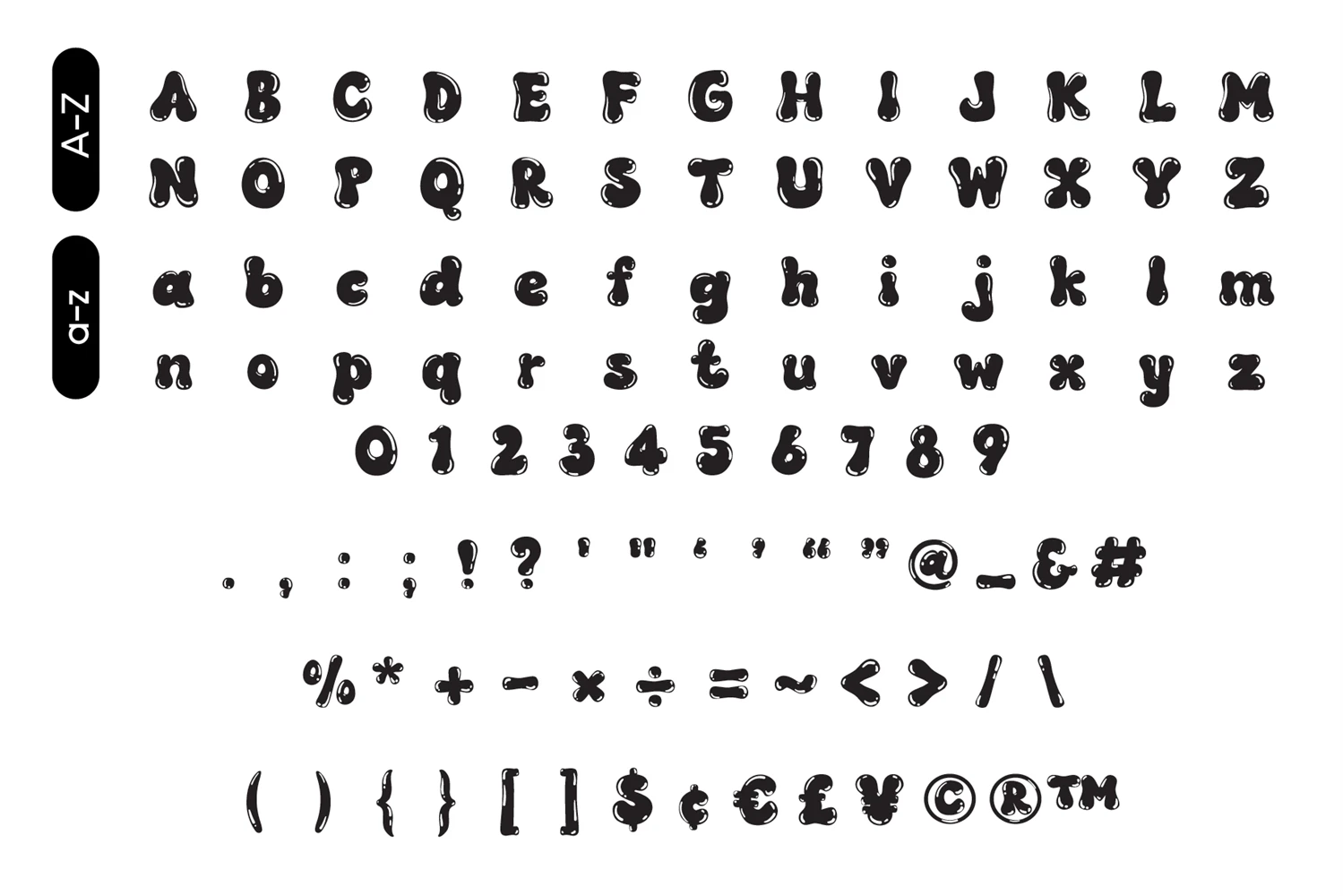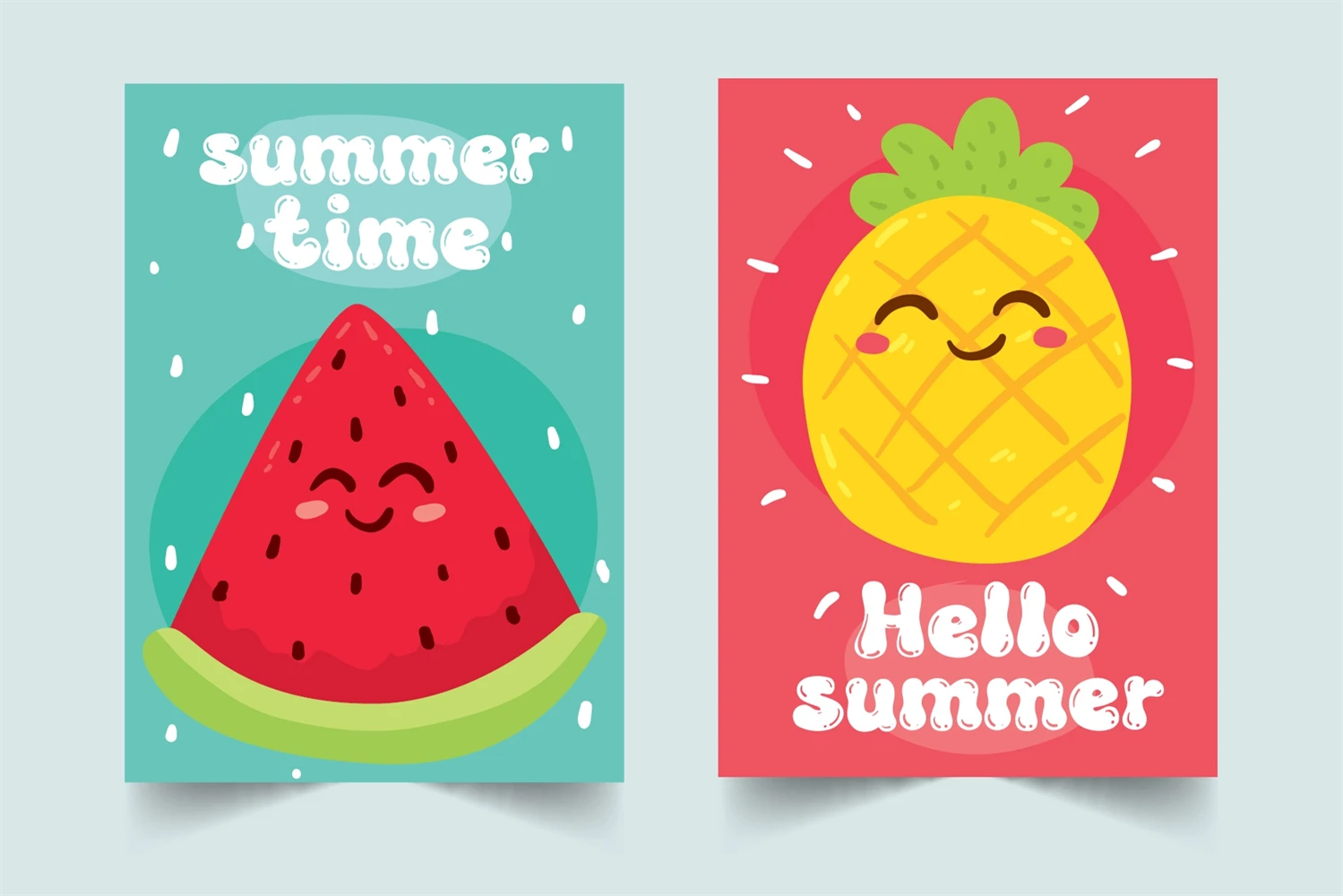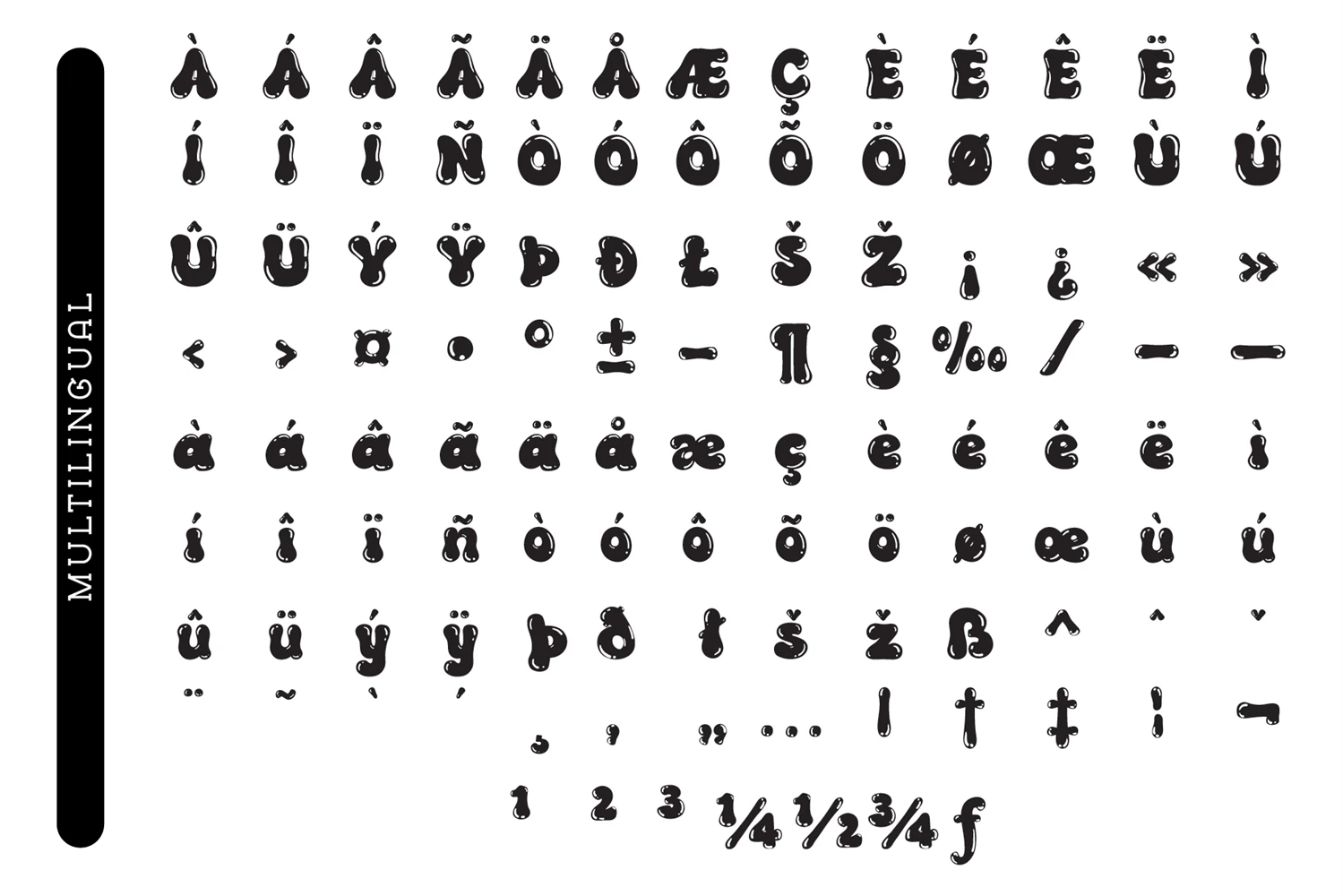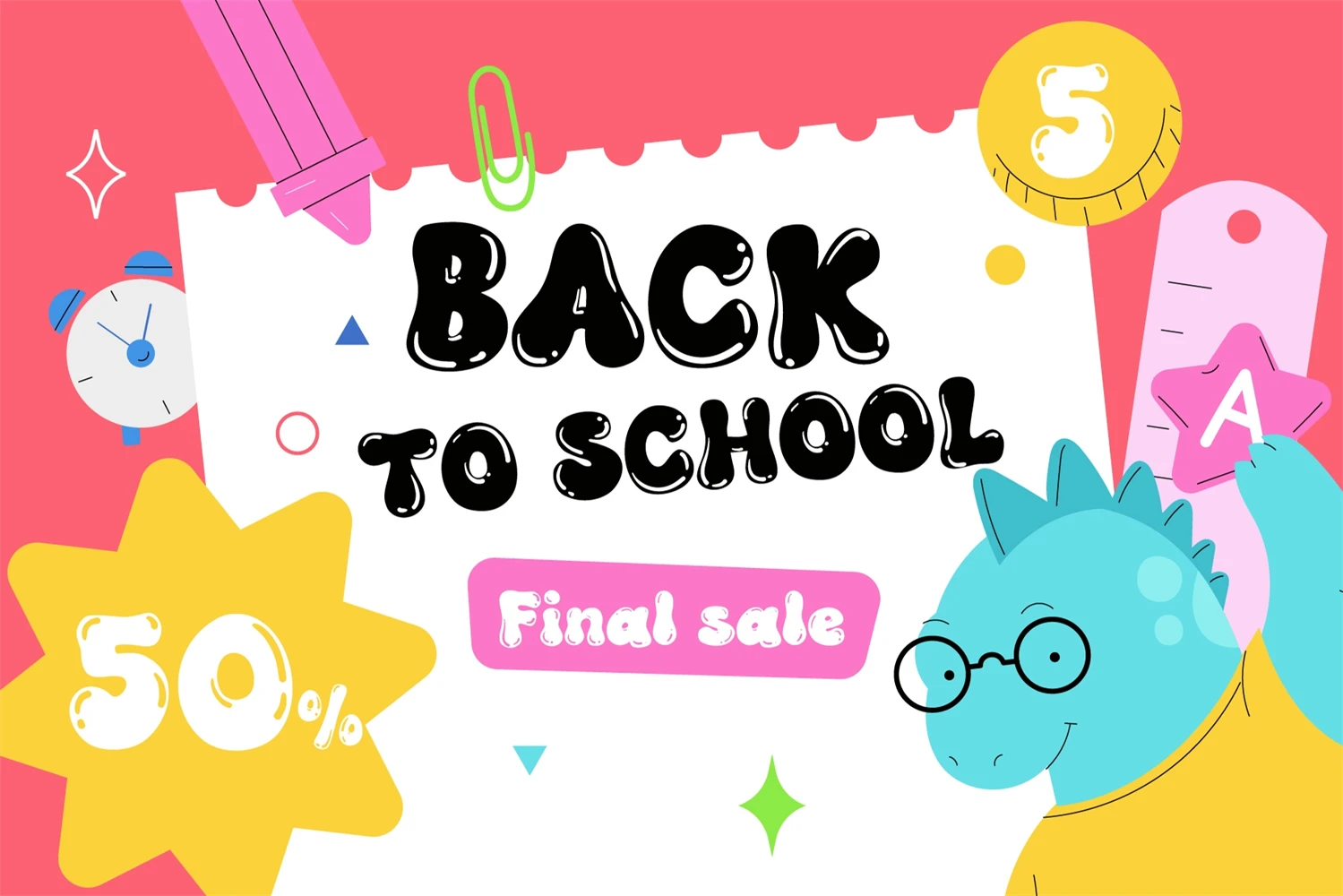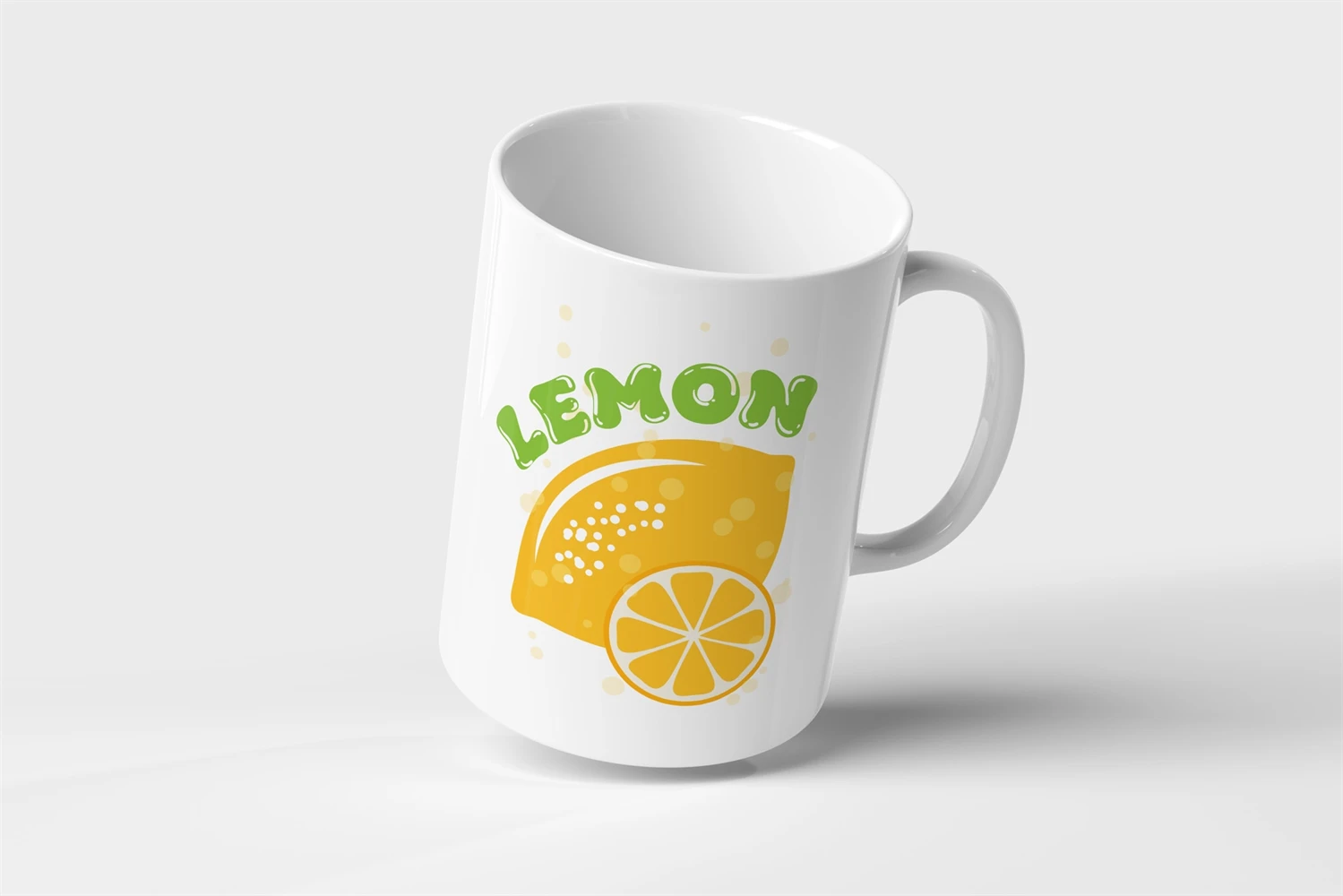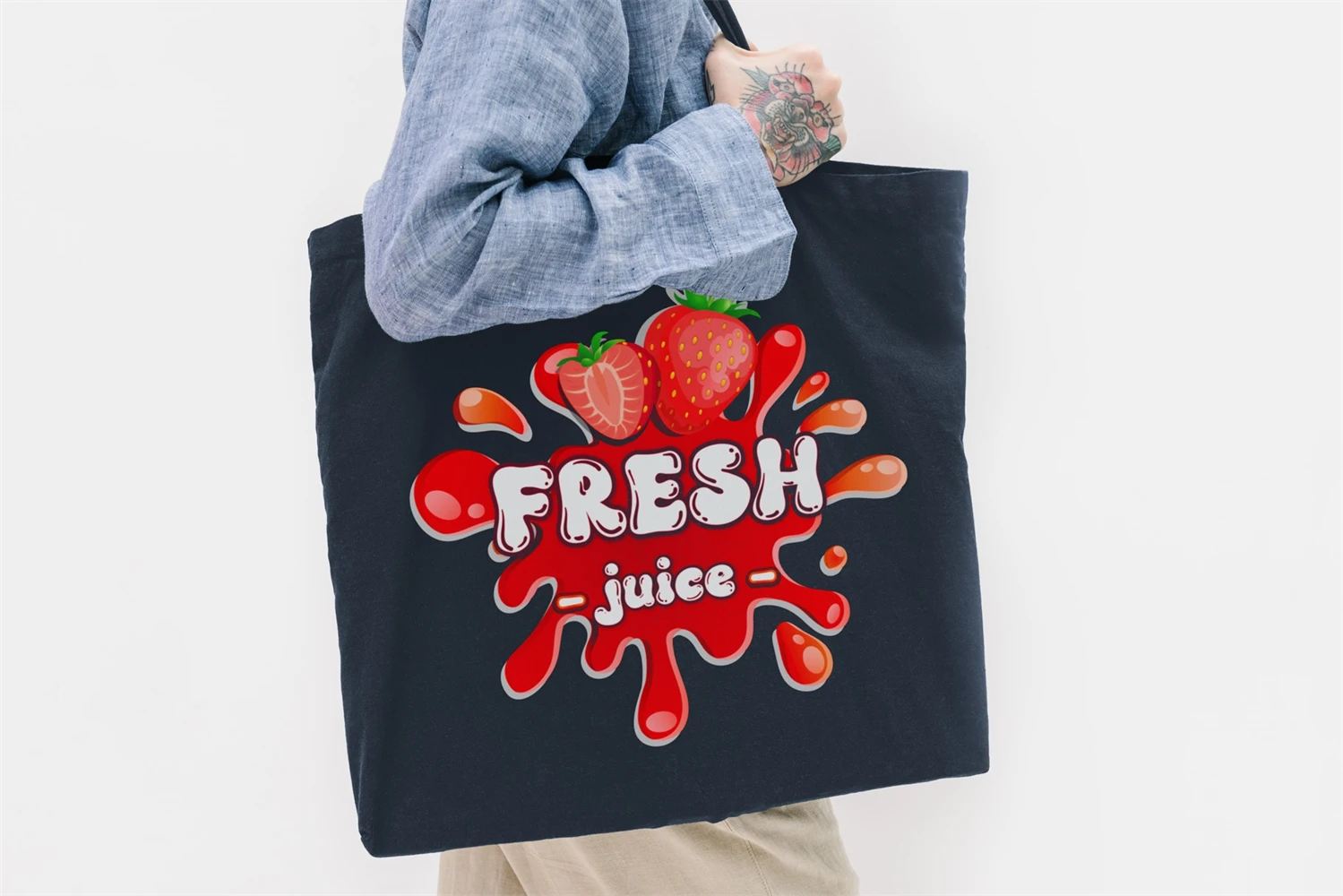
Fox Bubble Font is groovy font a playful display font that captures the cool, and retro style. With its fun and funky letterforms, this font is perfect for adding a touch of personality to any design project. Whether you're creating t-shirts, stickers, childrens book covers, social media posts, or anything in between, Fox Bubble Font is the perfect choice for making your designs stand out.